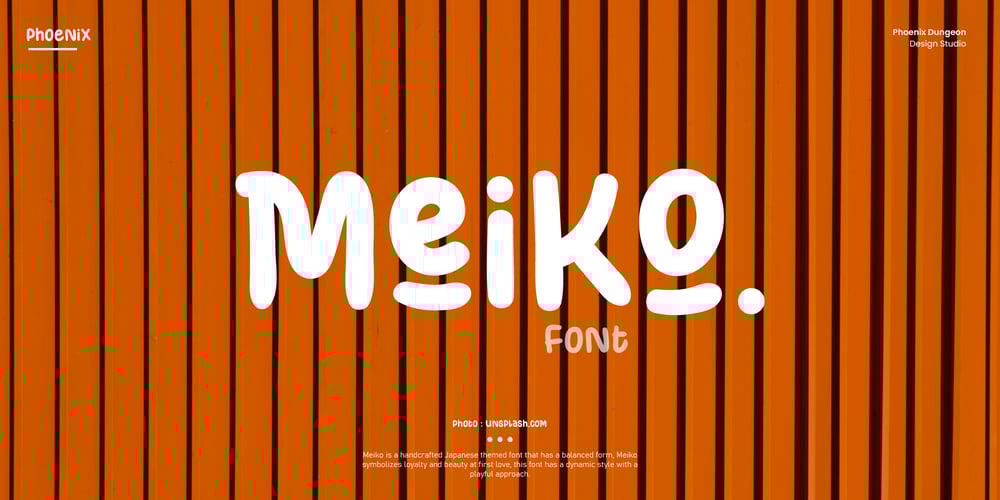
Meiko
Meiko font
Meiko Font Family was designed by Alif Naufal Muzakki and published by Phoenix Group. Meiko contains 1 styles and family package options. Meiko is a handcrafted Japanese-themed font that has a balanced form, Meiko symbolizes loyalty and beauty at first love, this font has a dynamic style with a playful approach.